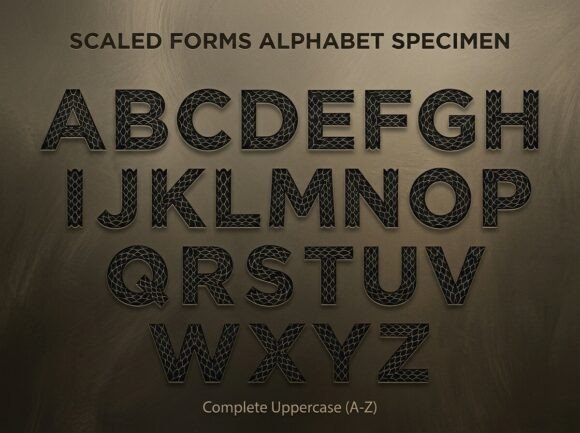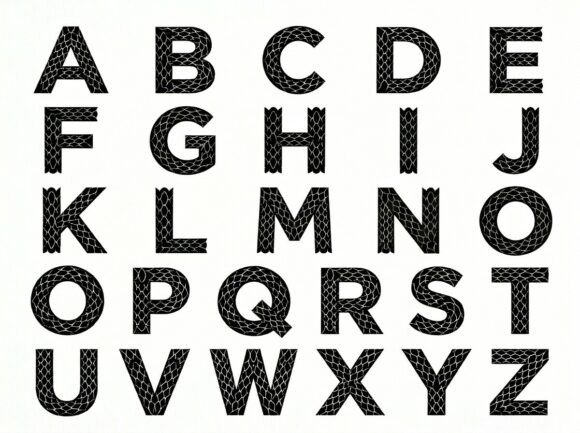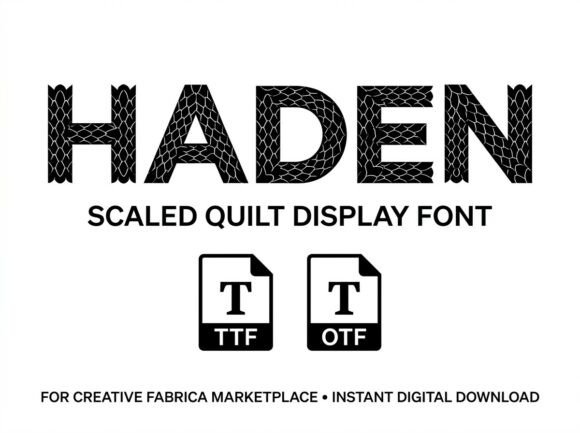
Introducing Haden Font: Elevate Your Creative Projects with a Unique Display Font
Are you tired of using the same old fonts for your creative projects? Do you want to add a touch of personality and sophistication to your designs? Look no further than Haden Font, a decorative display font designed to be the centerpiece of any layout. With its distinct artistic elements and strong character, Haden Font is perfect for creators who want to break away from the ordinary and elevate their designs to the next level.
A Font that Packs a Punch
Haden Font is a bold and eye-catching font that is sure to make a statement. Its unique artistic elements and strong character make it perfect for a variety of design applications, from bold headlines to creative branding and packaging. Whether you’re a graphic designer, crafty DIY enthusiast, or entrepreneur looking to create a professional brand identity, Haden Font is the perfect choice.
What Sets Haden Font Apart
So, what sets Haden Font apart from other fonts on the market? For starters, its distinct artistic elements and strong character make it a true showstopper. Unlike other fonts that can be bland and boring, Haden Font is designed to add a touch of personality and whimsy to any design. Plus, its high-end, professional aesthetic makes it perfect for creators who want to deliver a polished and sophisticated look without compromising on personality.
⚠️ Technical Note: The font is an All-Caps display typeface. By design, it does not contain lowercase letters, making it a powerful tool for logos, titles, and decorative initials.
Haden Font is perfect for a variety of design applications, including:
- Bold Headlines: Add a touch of drama and flair to your headlines with Haden Font’s bold and eye-catching design.
- Creative Branding: Use Haden Font to create a unique and memorable brand identity that sets you apart from the competition.
- Packaging Design: Add a touch of sophistication and elegance to your packaging designs with Haden Font’s high-end aesthetic.
- Logos and Titles: Use Haden Font to create bold and eye-catching logos and titles that make a lasting impression.
Why Choose Haden Font?
So, why choose Haden Font for your creative projects? Here are just a few reasons:
- Unique and Memorable: Haden Font is a truly unique and memorable font that will help you stand out from the crowd.
- High-End Aesthetic: With its sophisticated and elegant design, Haden Font delivers a high-end aesthetic that’s perfect for professional designers and crafty DIY enthusiasts alike.